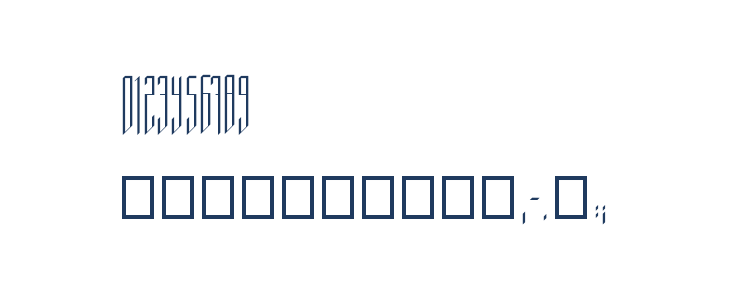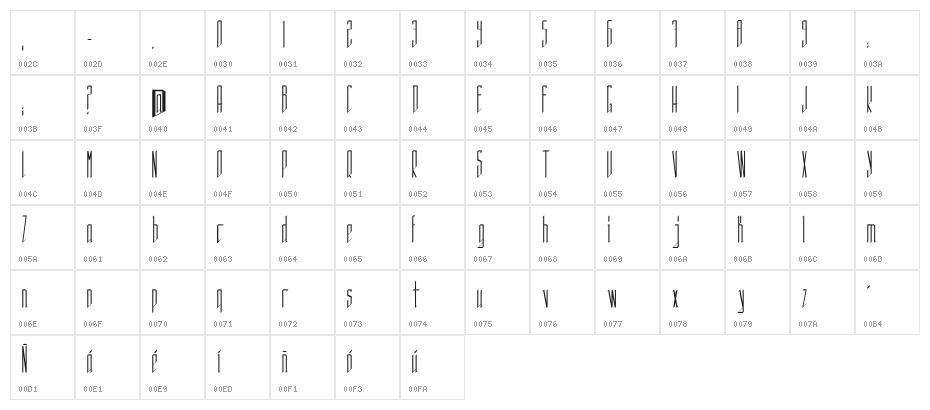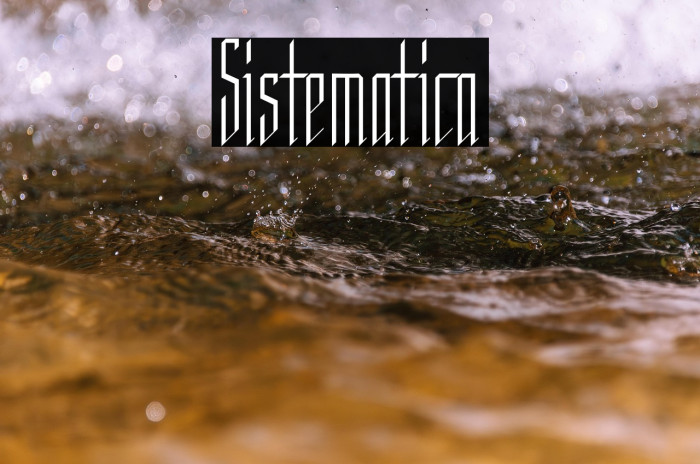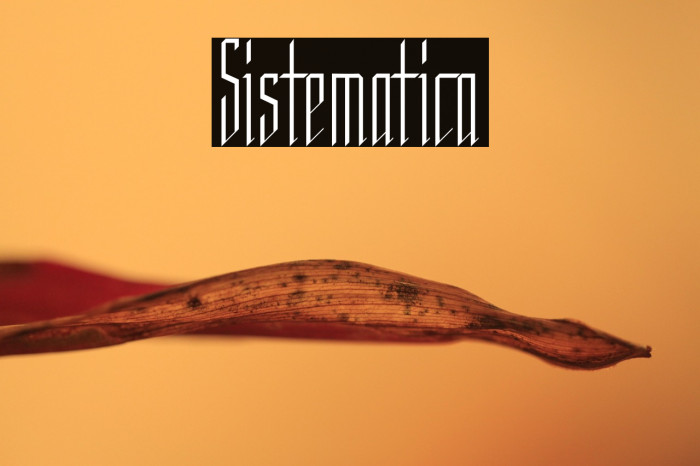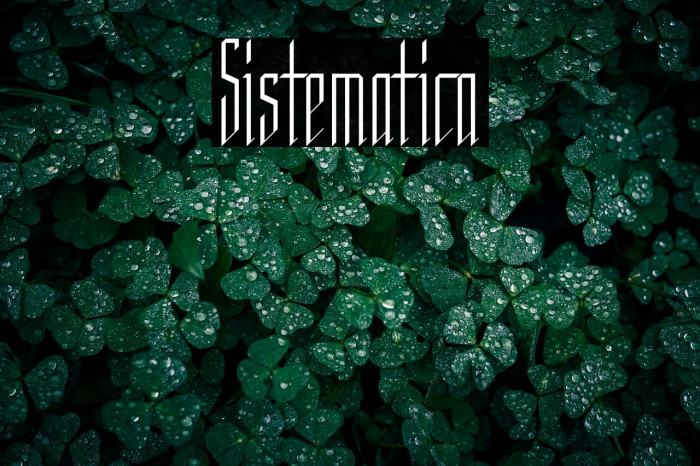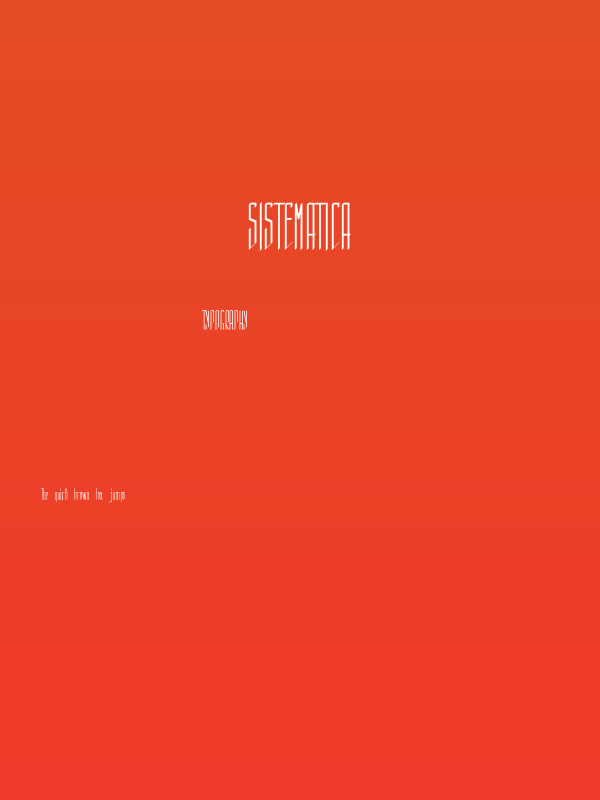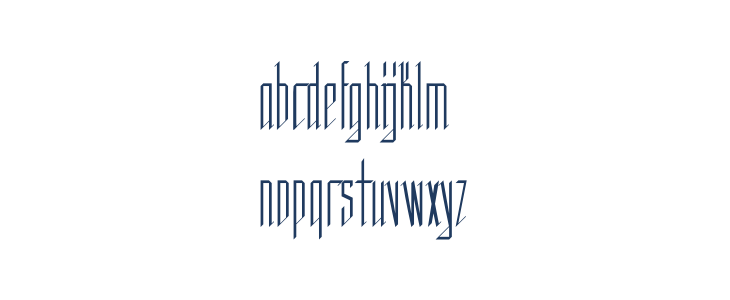
Sistematica Font
Sistematica Description
This font features a striking, elongated design with sharp, angular edges that give it a futuristic and dynamic appearance. The characters are tall and narrow, creating a sense of verticality and movement. The uppercase and lowercase letters maintain a consistent style, with the lowercase being slightly more compact. Numbers follow the same elongated and angular design, ensuring uniformity across all characters. The special characters are minimalistic, complementing the overall sleek aesthetic. This font's unique style makes it stand out, ideal for projects that require a modern and edgy look.
| Proposed Projects | Ideal for sci-fi themed designs, modern branding, poster headlines, and digital artwork. |